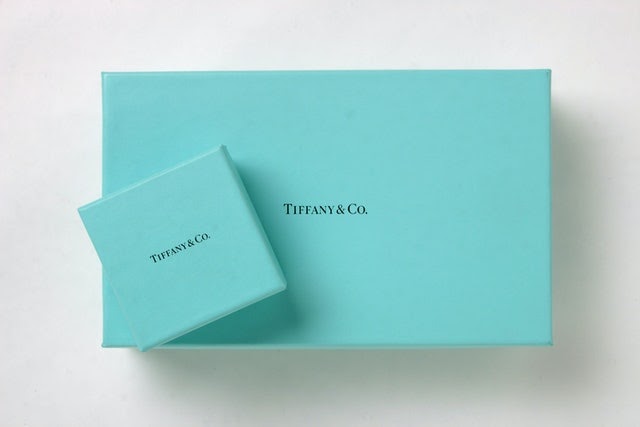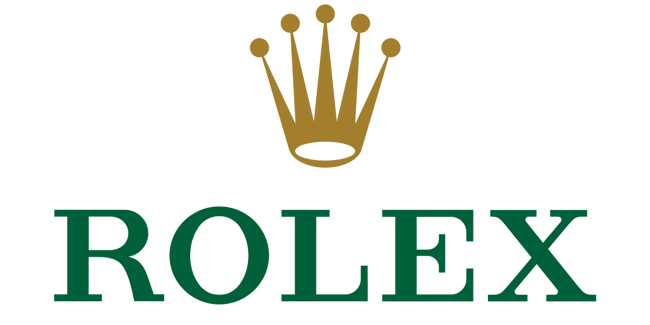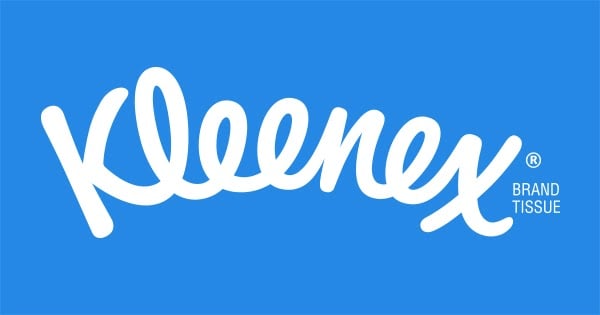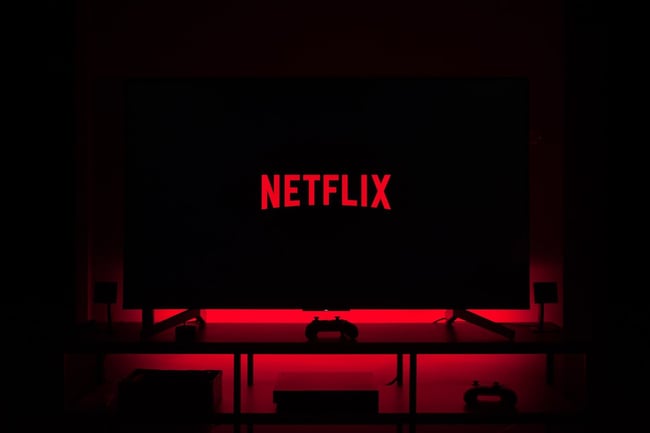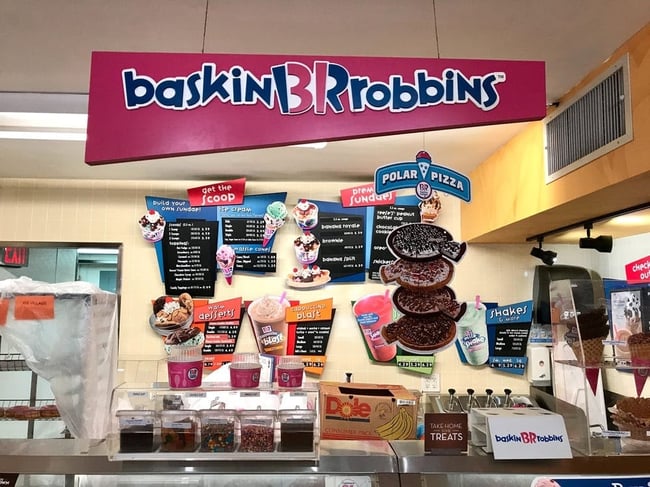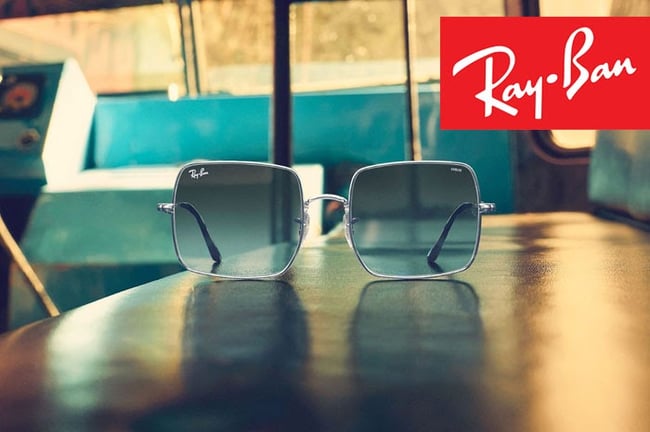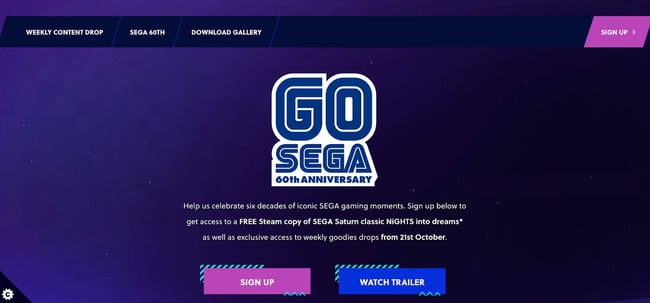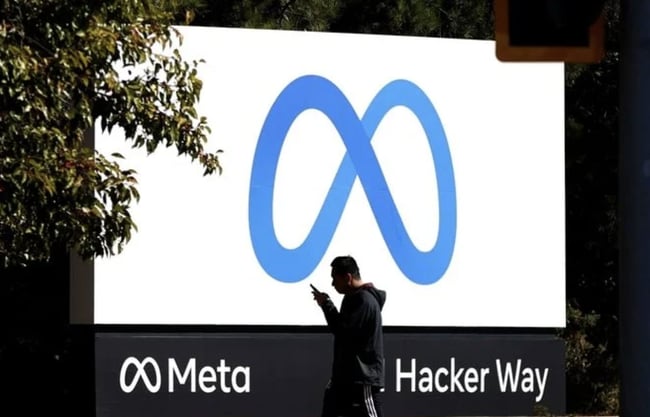
Font Types: What These 4 Say About Your Brand
Font Types: Calligrapher creating decorative font type
Font choices can make or break a brand identity. Fonts convey personality, meaning, history, and character.
But with millions of fonts available online, it's hard to decide which ones to use when building a brand. The good news is most fonts are variations of the four main types of fonts out there.
Let’s review the four main font types, understand the distinction between them, what they say about your brand, and some examples.
1. Serif
Serif fonts were the first typefaces to be used en-masse in printing. Dating back to the 1400’s, serif fonts have decorative flicks at the ends of each stroke, mimicking a quill or pen.
Designed by William Caslon in 1734, Old Style was arguably the first mainstream serif font to hit the market. Didot and Bodini followed soon after and remain popular serif choices for brands today.
What Do Serif Fonts Say About a Brand?
Given their history, these fonts lend a sense of timelessness and tradition to a brand. Brands like Rolex, Mercedes, Prada, and Dior use serif fonts in their logos.
font types: rolex logo uses serif fonts
font types: tiffany & co logo uses serif fonts
Serif Font Types Examples
There are thousands of serif fonts out there, but some of the most popular ones are:
• Times New Roman
• Garamond
• Bodini
Things to Consider When Using a Serif Typeface
When choosing a font for your brand, you want to consider the perception you’re trying to create amongst your target audience. If you’re hoping to recall a sense of old-world class, a serif font is the right choice.
What Businesses Should Use serif fonts?
Serif fonts are an elegant choice for all businesses, but those rooted in a long-standing practice will reap the benefits of a serif font. Here are a few business categories that frequently use serif fonts in their branding:
• Journalism
• Jewelry making
• Law
• Finance
• Furniture making
• Wellness services
2. Sans Serif
Sans serifs are the sharp, modern alternative to a serif typeface.
Sans serifs are known for their clarity and legibility. Use them whenever you want to share information easily, in a clear and direct way. They can be used in lighter weights for airy looks or heavier weights for bolder looks.
What Do Sans Serifs Fonts Say About a brand?
While the first sans serif was designed in 1816, these typefaces are often used by companies aiming to look futuristic, like technology companies. Businesses like Google, Facebook, and Netflix use sans serifs in their logos.
font types: netflix logo uses sans serif fonts
font types: meta logo uses sans serif fonts
Sans Serif Font Types Examples
Sans serifs are known for their crisp lines. Some popular serif fonts include:
• Helvetica
• Proxima Nova
• Futura
• Open Sans
Things to Consider When Using a Sans Serif Typeface
A great way to create visual interest when using sans serif fonts is to mix different weights of the same font family. This keeps your branding refined while adding a sense of depth.
What Businesses Should Use Sans Serif Fonts?
Sans serif fonts are a great choice for businesses looking for a clean and modern look. Their versatility lends to an array of different business categories like:
• Technology
• Gaming
• Consulting
• Fashion
• Automobiles
• Manufacturing
3. Script
Script, or cursive, fonts are characterized by curvy, wispy elements that mimic handwriting.
These fonts tend to be divided between more formal or casual-looking options. You’ll often see formal script fonts used for black-tie events, while casual script fonts can be used to dress up just about any brand.
What Do Script Fonts Say About a Brand?
While some script fonts can be highly decorative and more feminine, others can look more loose and retro. Brands like Ray Ban, Kellog’s, Sharpie, and Kleenex use cursive fonts in their logos.
font types: ray ban logo uses script fonts
font types: kleenex logo uses script fonts
Script Font Types Examples
Cursive fonts range from calligraphic styles to more edgy, handwritten looks. Some popular options are:
• Pacifico
• Parisienne
• Allura
• Sans serif fonts show off a brand’s modern edge.
• Script fonts bring a sense of elegance to a brand.
• Decorative fonts are full of personality and convey a custom designed look.